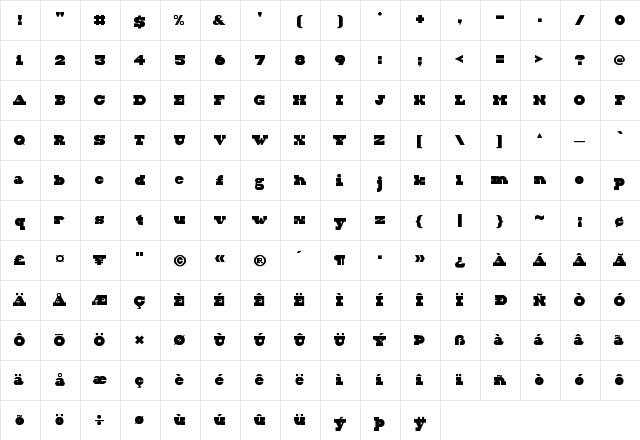
Squabble Regular
| Designer | David DeSandro |
Design Context for Squabble Typeface
Squabble offers clean, dependable letterforms without strong stylistic allegiance, making it a practical choice for designers who need flexibility.
Pro Tip: Pair Squabble with a font of contrasting weight or personality to build a more expressive typographic hierarchy.